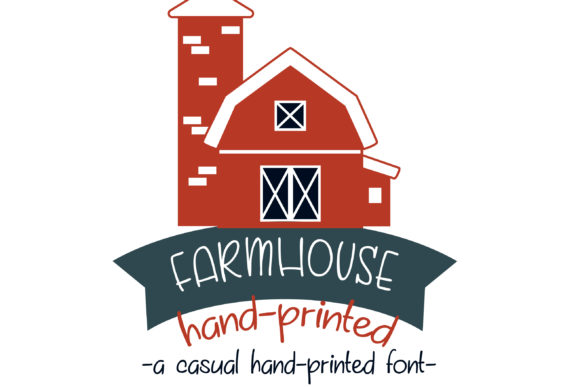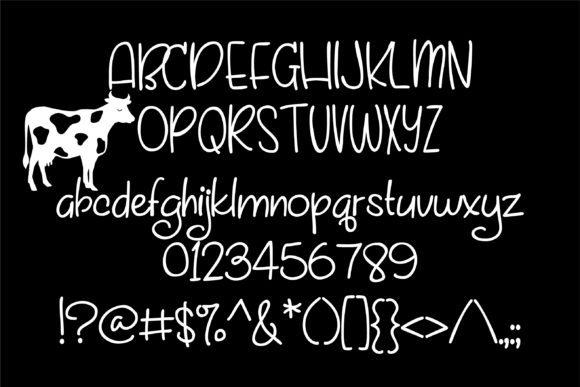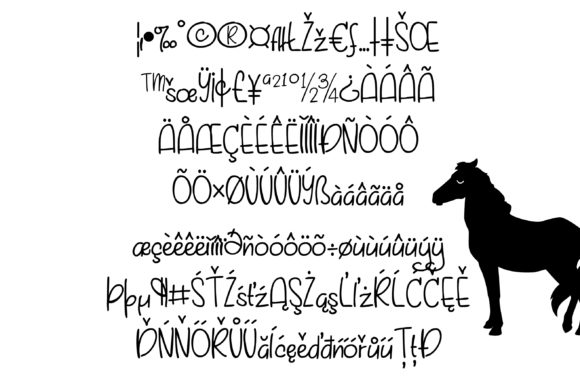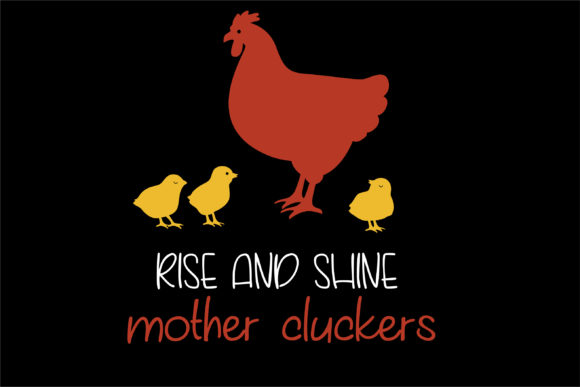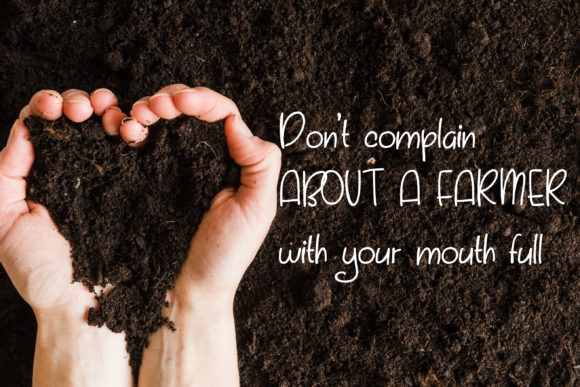
Farmhouse Font
About Farmhouse Font
Farmhouse is casual hand-printed font featuring friendly letters. Its simple style makes it perfect for use in any design project!